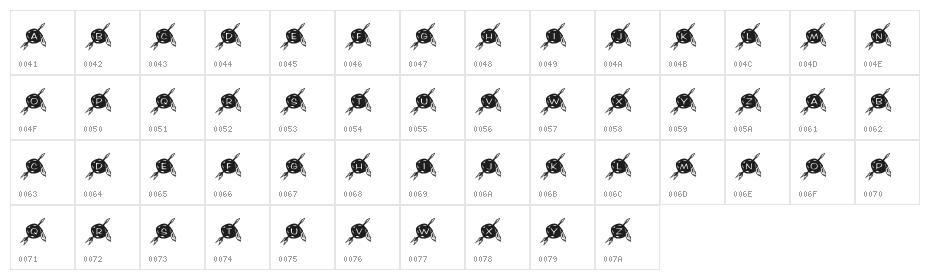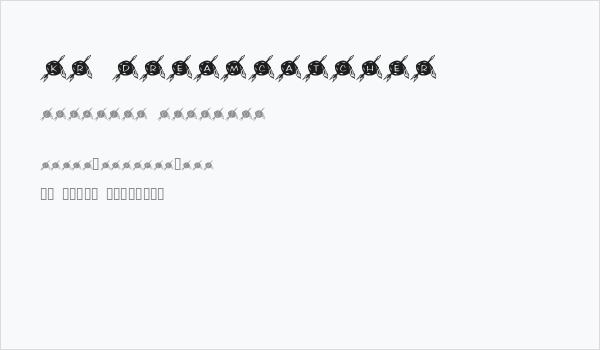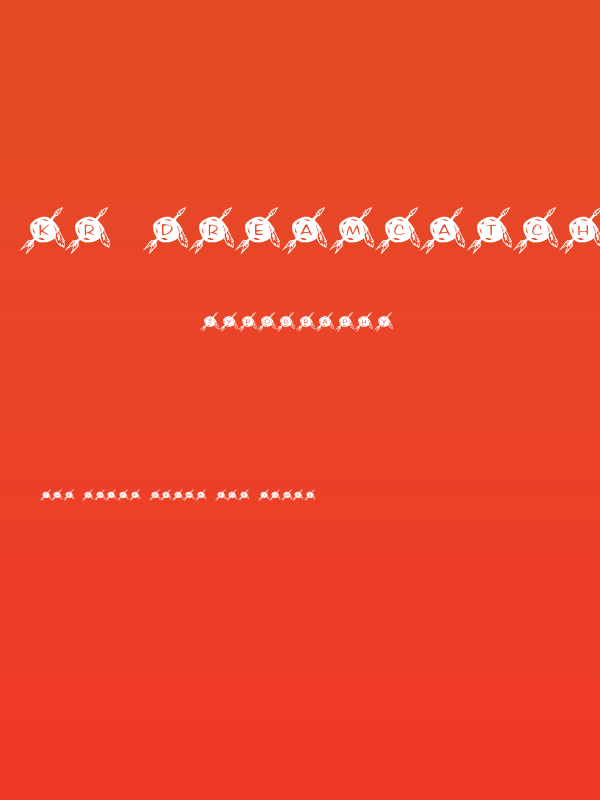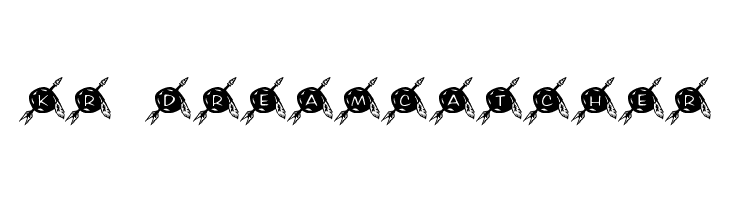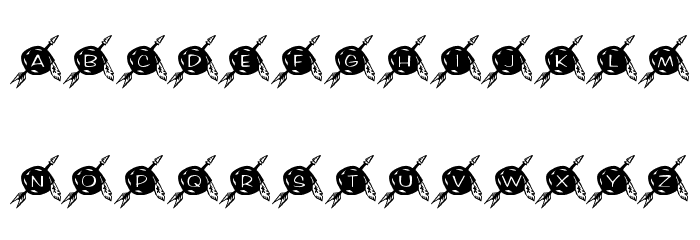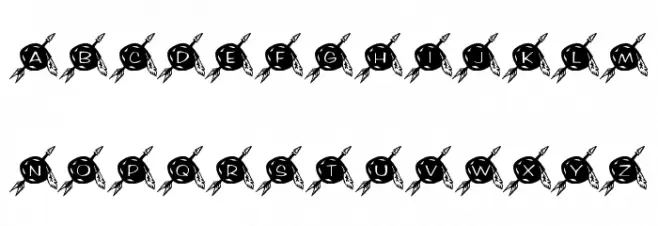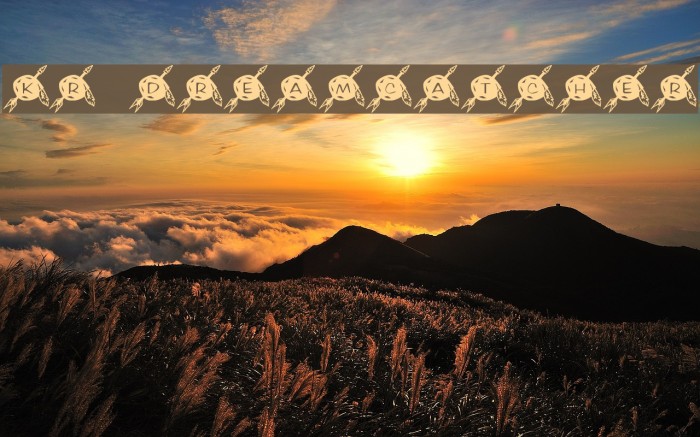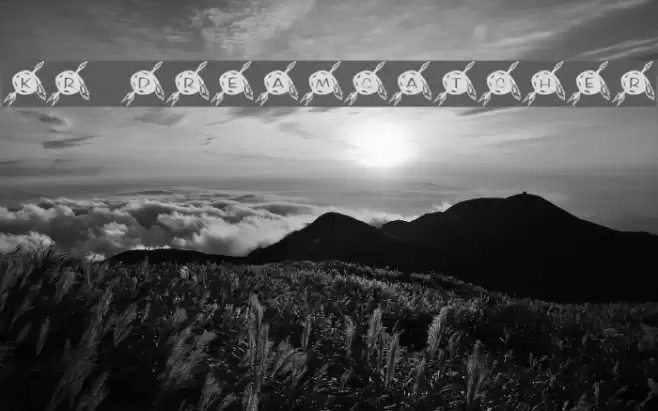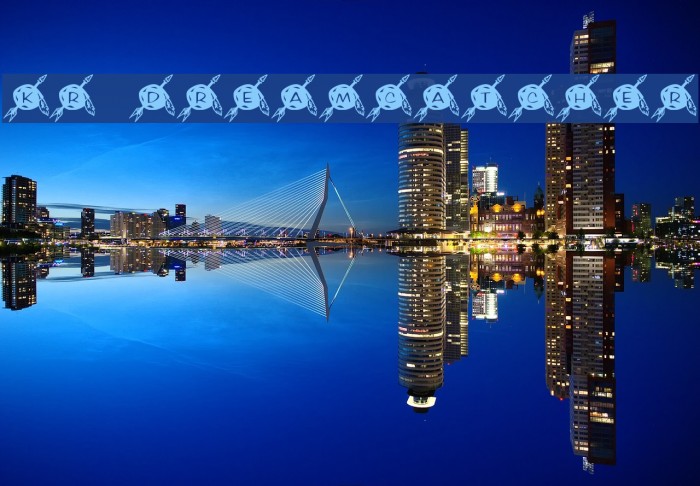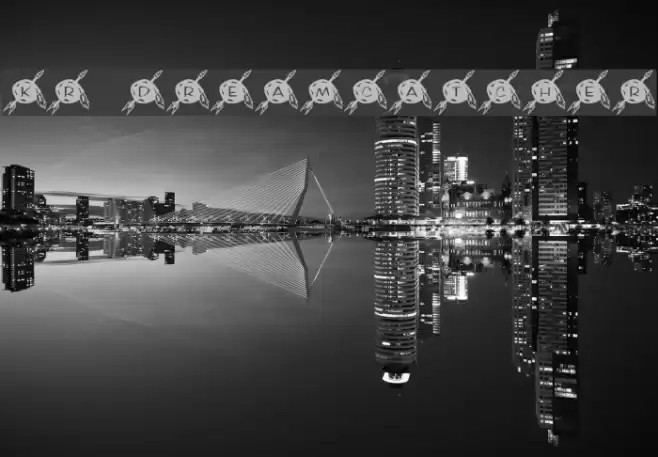
KR Dreamcatcher Font
KR Dreamcatcher Description
This decorative font features letters encased within circular dreamcatcher designs, complete with intricate feather details extending from each side. The bold, uppercase and lowercase characters are consistent in style, creating a cohesive and thematic appearance. The numbers and special characters are similarly styled, maintaining the dreamcatcher motif throughout. This font is ideal for projects that require a unique and thematic touch, particularly those related to cultural or artistic themes.
| Use Case | Logos, Headlines, Themed Invitations |
| Proposed Projects | Ideal for cultural event posters, artistic projects, themed invitations, and unique branding materials. |